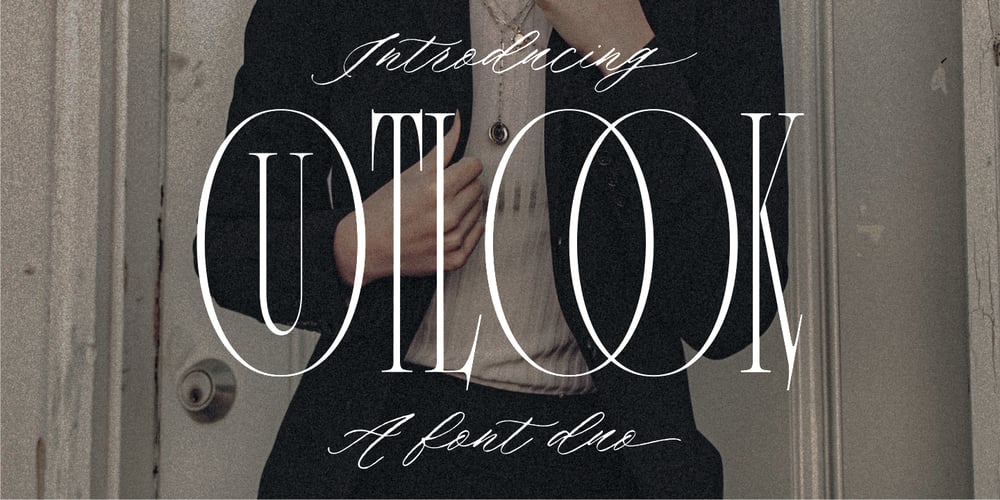
Outlook Display Font Family was designed by Nurul Fajri Redy and published by Redy Studio. Outlook Display contains 2 styles and family package options. Outlook Font Duo offers a perfect combination of elegance and versatility by seamlessly blending serif and script font styles. This font duo provides a harmonious balance between a sophisticated and traditional serif typeface and a stylish and handcrafted script font, resulting in a visually captivating and dynamic typography experience.The serif font of Outlook Font Duo exudes a sense of refinement and classic appeal. Its letterforms are meticulously crafted with clean lines, precise curves, and balanced proportions, also includes many ligatures (CC,CO,EA,GG,GO,KA,LA,NN,OC,OG,OO,RA,TT) and dligatures (CC,CH,CI,CO,LL,LI,OC,OF,OH,OI,OO,OU) which lso you can see in the preview.Complementing the serif font, the script font of Outlook Font Duo adds a touch of creativity and informality. The script font features hand-drawn letterforms with rough strokes.This script font also includes ligatures, lowercase swsh which lso you can see in the preview.The versatility of Outlook Font Duo lies in its ability to be used together or separately, offering flexibility in creating various design compositions. Outlook Font Duo is suitable for a wide range of design projects, including branding, logos, packaging, invitations, and editorial designs.Feel free to give me a message if you have a problem or question. Thank you so much for taking the time to look at one of our products. ~Redy